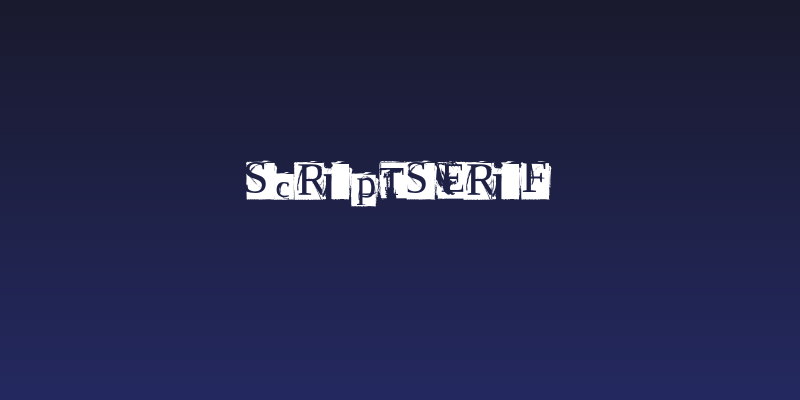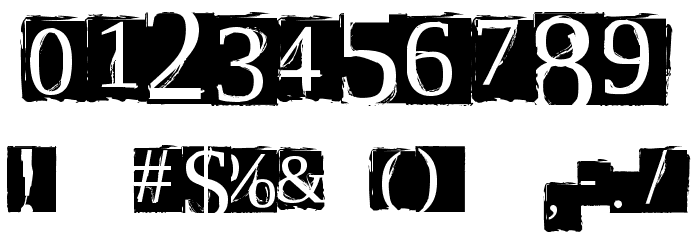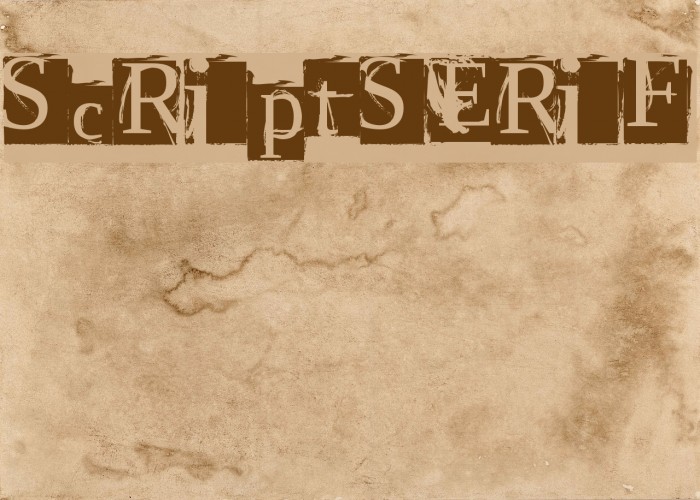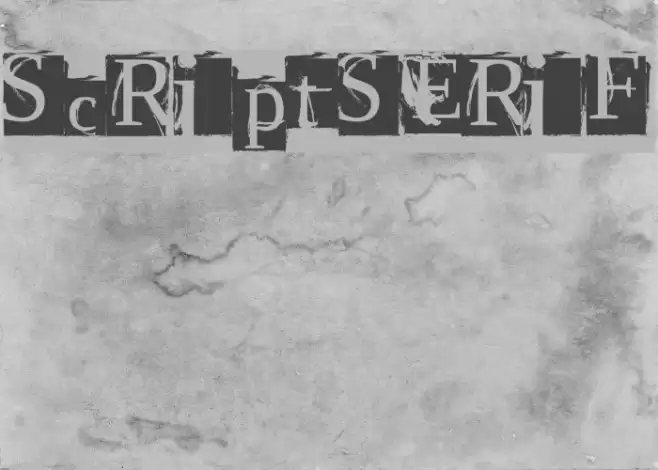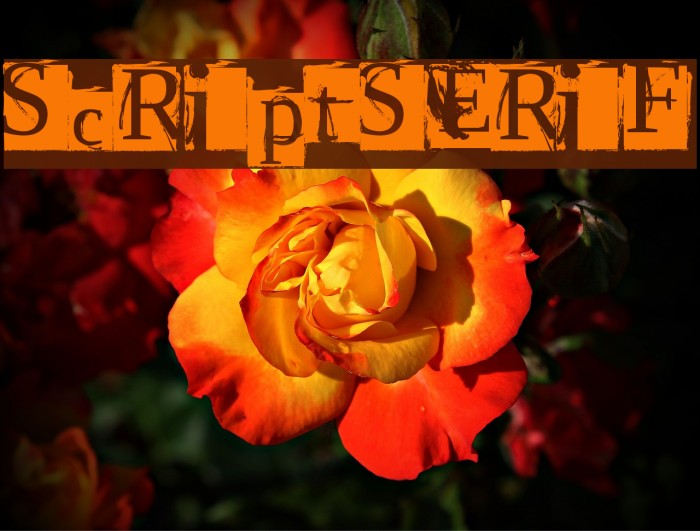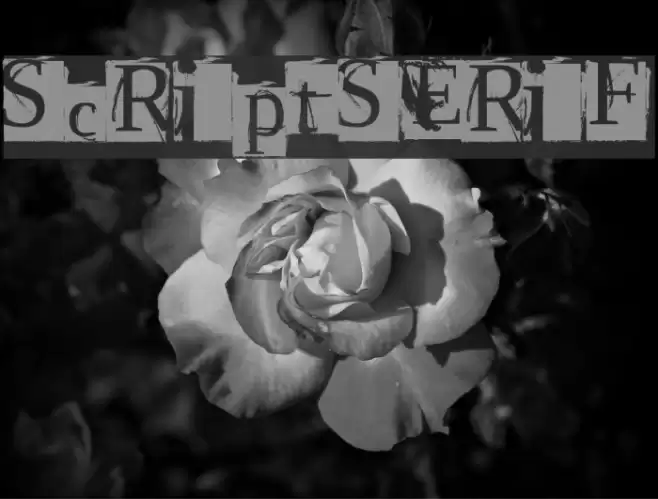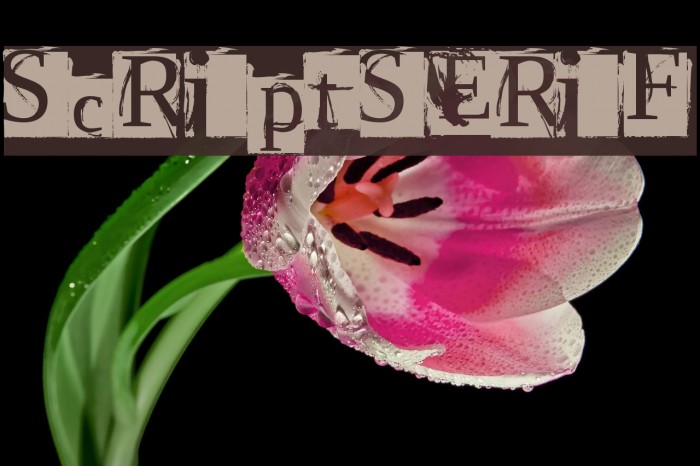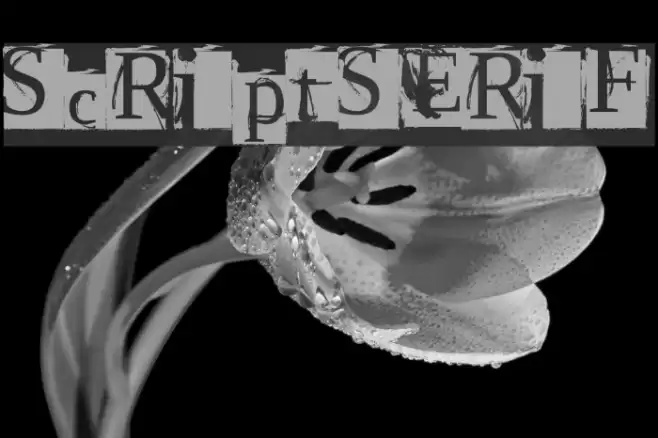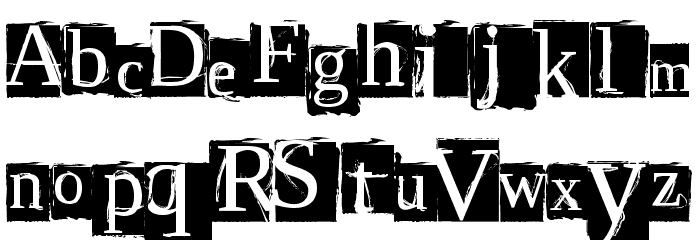
ScriptSERIF Font
ScriptSERIF Description
This font features a distressed and grunge aesthetic, combining traditional serif elements with a rough, textured appearance. Each character is enclosed in a black square, giving it a unique, blocky look. The serifs are pronounced, adding a classic touch to the otherwise modern and edgy design. The uppercase and lowercase letters maintain a consistent style, with the texture creating a sense of depth and movement. The numbers and special characters follow the same design principles, ensuring a cohesive look across all glyphs.